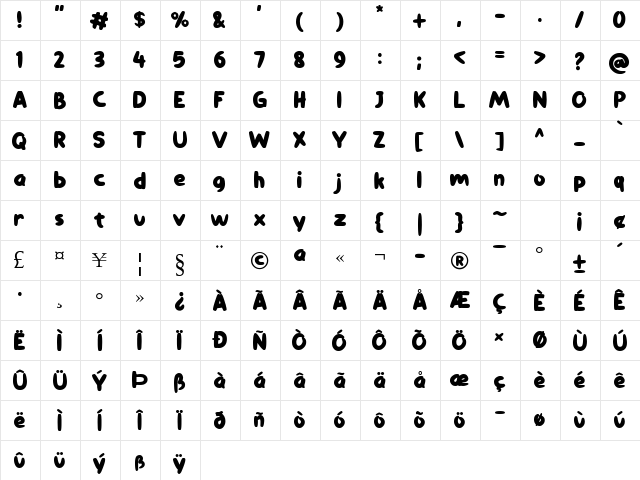
Comiccomoc Regular
Design Context for Comiccomoc Typeface
Comiccomoc has an approachable, lighthearted character — its loose, expressive forms are well-suited to children's content, casual branding, and fun-first design.
Font Pairing: Pairs well with a rounded or humanist sans for body copy, maintaining the friendly tone without relying on Comiccomoc to carry extended reading.
Pro Tip: Use Comiccomoc at larger display sizes where its expressive character can land. Pair with a clean, simple sans for body copy to maintain readability.